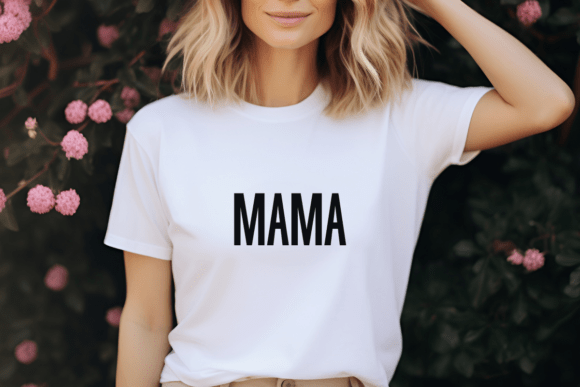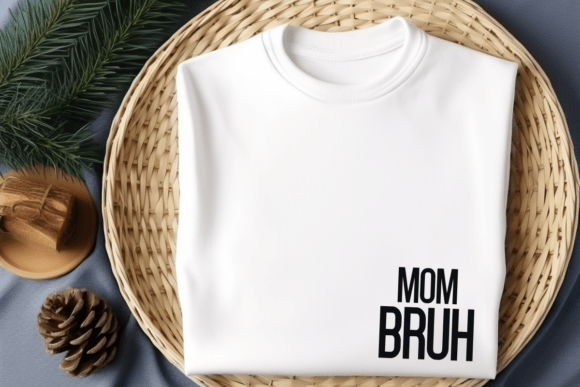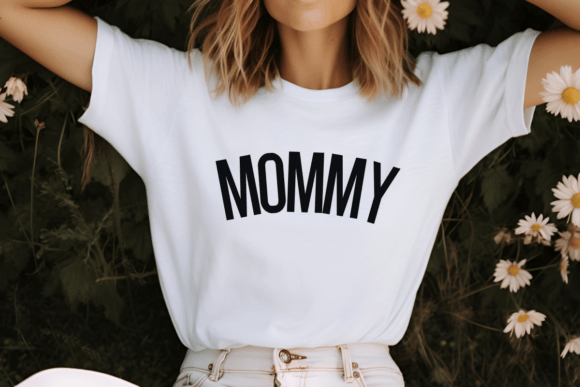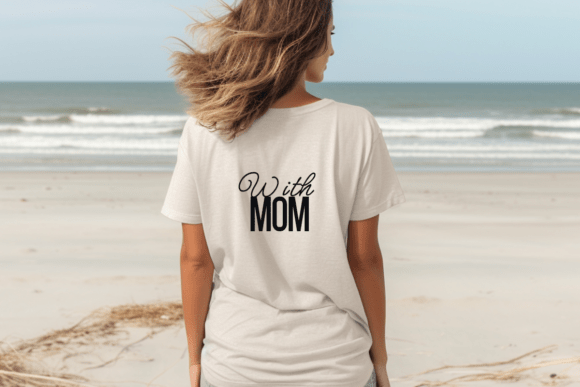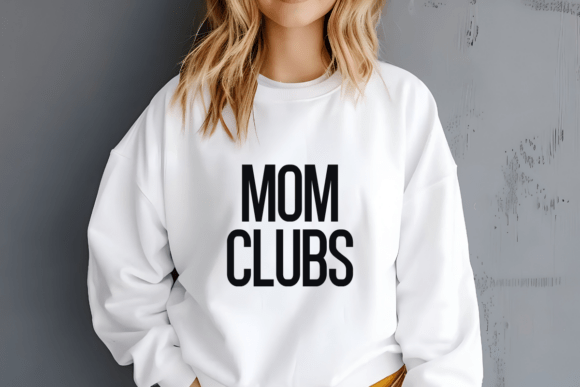
Introducing Good Vibes Font: Elevate Your Designs with Sleek and Stylish Typography
In the world of design, typography plays a crucial role in conveying messages, evoking emotions, and creating a lasting impression. For creators who value clean aesthetics and strong visual impact, the Good Vibes Font is an excellent choice. This sleek and stylish condensed sans serif font is designed to elevate your designs, whether you’re working on Print On Demand projects, film titles, branding, logos, or modern packaging.
Clean Aesthetics and Strong Visual Impact
The Good Vibes Font boasts tall, narrow letterforms and elegant spacing, making it perfect for designs that require a touch of sophistication and elegance. Its condensed style allows for more flexibility in your designs, enabling you to create visually appealing text that doesn’t overwhelm the senses. Whether you’re designing for print or digital media, this font ensures that your message is conveyed with clarity and style.
Perfect for Print On Demand Projects
For crafters and designers who specialize in Print On Demand projects, the Good Vibes Font is an excellent addition to your toolkit. Its versatility makes it ideal for designing:
- T-shirts: Create stylish and modern apparel that stands out from the crowd.
- Posters: Design eye-catching posters that grab attention and leave a lasting impression.
- Mugs: Add a touch of personality to everyday items like mugs, making them perfect for gifts or personal use.
- Tote bags: Create functional and fashionable tote bags that showcase your design skills.
Beyond Print On Demand: Film Titles, Branding, Logos, and Packaging
The Good Vibes Font is not limited to Print On Demand projects. Its sleek and stylish design makes it suitable for a wide range of applications, including:
- Film titles: Add a touch of sophistication to your film titles, creating a lasting impression on your audience.
- Branding: Establish a strong brand identity with a font that exudes elegance and style.
- Logos: Create memorable logos that stand out from the competition.
- Modern packaging: Elevate your packaging designs with a font that conveys luxury, sophistication, and style.
Versatile Style for Professional and Playful Designs
The Good Vibes Font is designed to be versatile, making it perfect for both professional and playful designs. Whether you’re working on:
- Minimalist branding: Create clean and elegant brand identities that speak to your audience.
- Cinematic visuals: Add a touch of sophistication to your film and video projects.
- Crafting projects: Elevate your crafting projects with a font that exudes style and elegance.
In conclusion, the Good Vibes Font is an excellent choice for designers and crafters who value clean aesthetics and strong visual impact. Its sleek and stylish condensed sans serif design makes it perfect for a wide range of applications, from Print On Demand projects to film titles, branding, logos, and modern packaging. With its versatile style and technical convenience, this font is sure to elevate your designs and help you create a lasting impression.